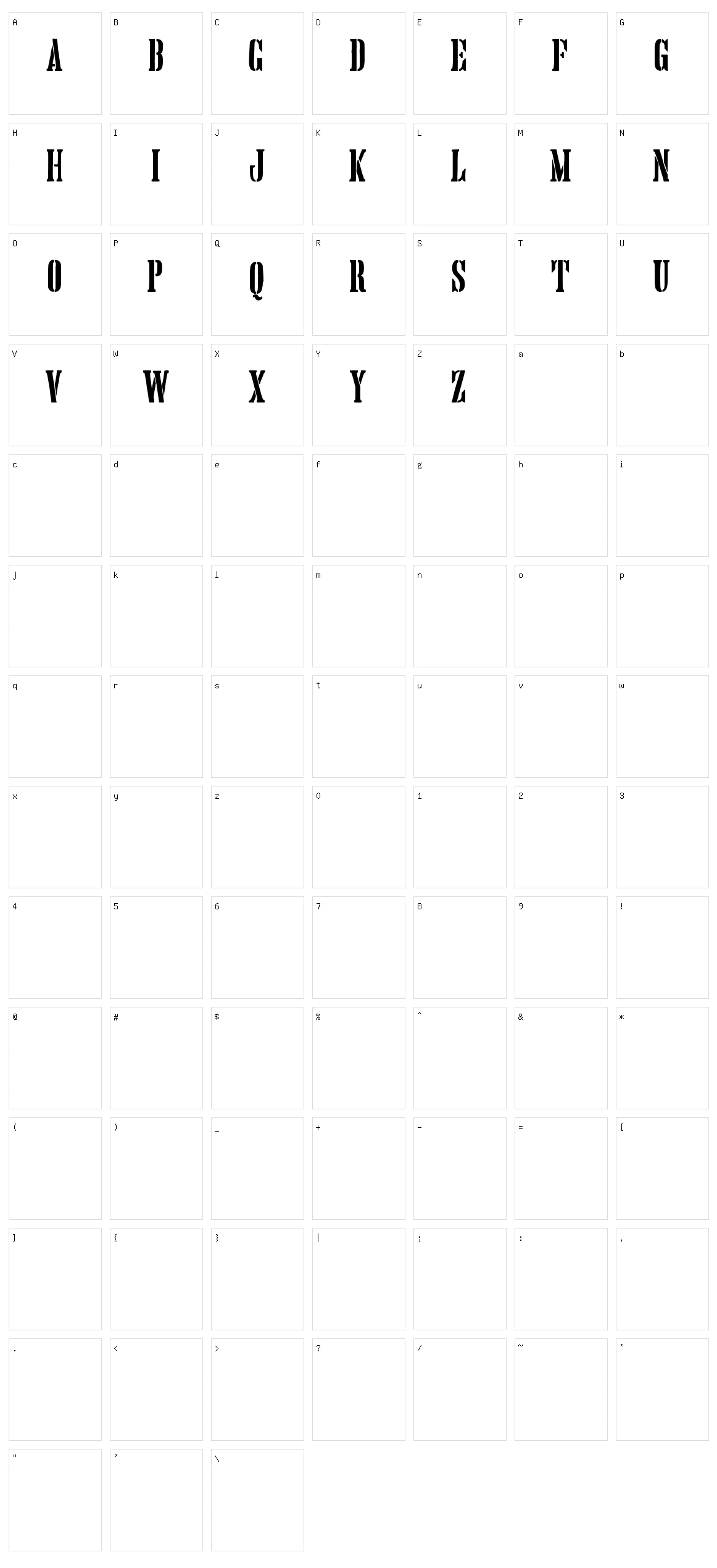
The free font Hand Printing Press Stencil is carefully designed by Fontscafe.com, showcasing a thoughtful balance of creativity and usability and falls under the Stencil font style. When you download the ZIP file, it contains only 1257.03 KB of font files, making it lightweight and quick to download. Please review the license details below to understand permitted usage and distribution rights. If license information is not available, we recommend using this font for personal projects only or contacting the author directly for commercial usage permissions.